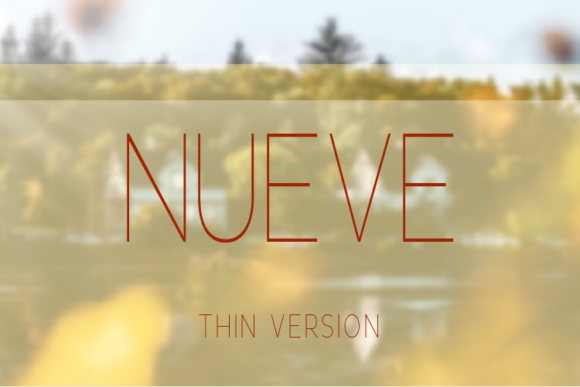
**Nueve Thin Font: A Stroke of Elegance and Clarity**
Within the realm of typography, Nueve Thin Font emerges as a paragon of grace and clarity. This exquisite sans serif font family, meticulously crafted by the visionary Huntype, is a testament to the transformative power of simplicity. Its clean lines, unpretentious style, and versatile nature make it an indispensable tool for discerning designers seeking to create enduring impressions.
**A Timeless Classic for Enduring Elegance**
Nueve Thin Font stands as a timeless classic, transcending ephemeral trends and stylistic fads. Its minimalist aesthetic exudes an air of sophistication, lending an aura of elegance to any design project it graces. Whether you're crafting a captivating logo, designing a polished magazine layout, or creating an unforgettable wedding invitation, Nueve Thin Font will elevate your work with its understated charm.
**Unleash Your Creative Potential with Limitless Versatility**
The Nueve Thin Font family is a versatile chameleon, effortlessly adapting to a myriad of design applications. Its inherent flexibility makes it an ideal choice for both digital and print media, allowing you to seamlessly transition your creative vision from screen to page. Unleash your imagination and explore the boundless possibilities Nueve Thin Font offers, from captivating website designs to eye-catching product packaging.
**A Symphony of Harmony for Cohesive Branding**
Nueve Thin Font possesses an innate ability to harmonize with other design elements, fostering a cohesive and unified visual identity for your brand. Its clean lines and understated elegance ensure seamless integration with a wide range of colors, graphics, and imagery. With Nueve Thin Font as your typographic foundation, you can effortlessly establish a strong and recognizable brand presence that resonates with your target audience.
**Experience the Nueve Difference: A World of Possibilities Awaits**
Nueve Thin Font invites you to embark on a creative journey, empowering you to transform your design aspirations into tangible realities. Its versatility and timeless appeal make it an essential tool for designers of all skill levels, from seasoned professionals to enthusiastic beginners. Embrace the Nueve experience and unlock a world of endless possibilities, where your imagination knows no bounds.